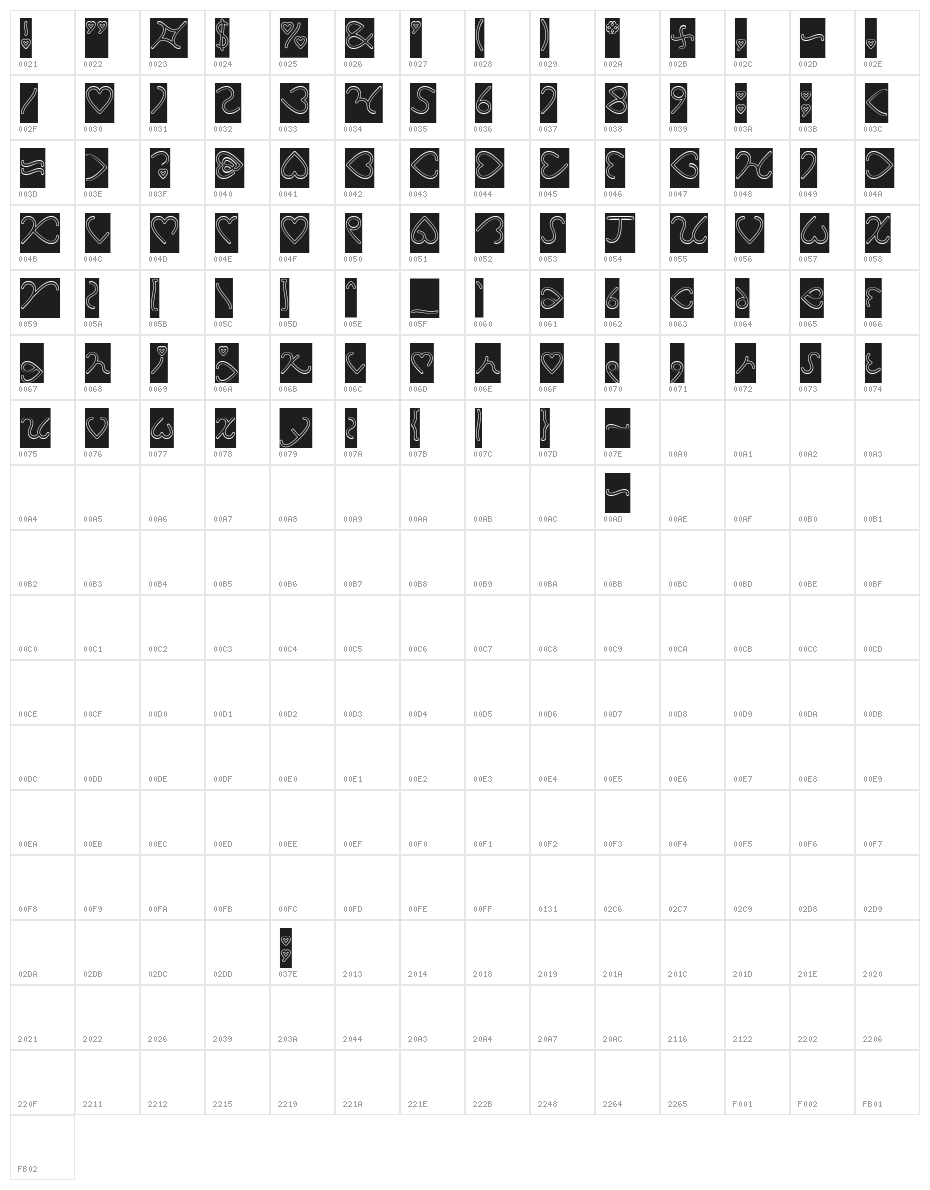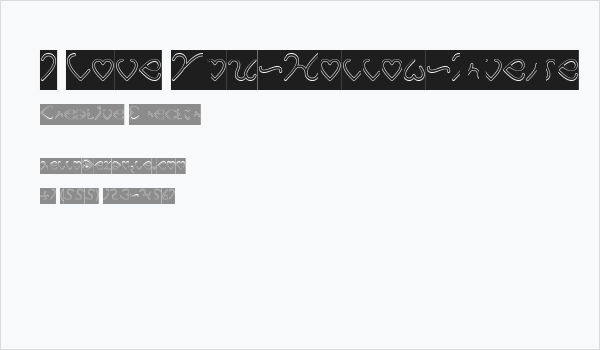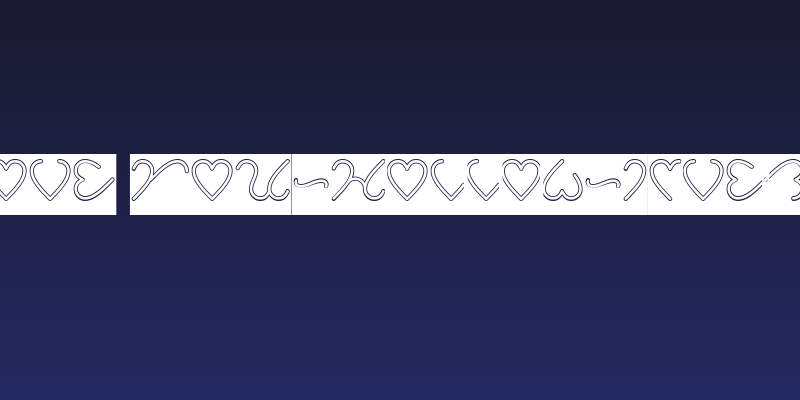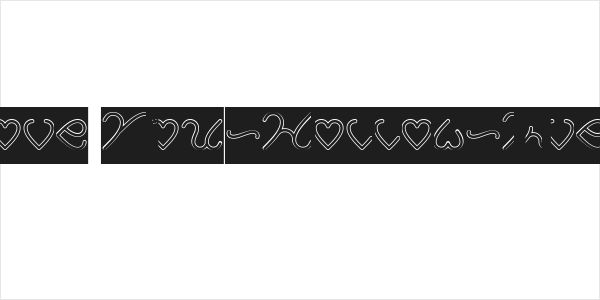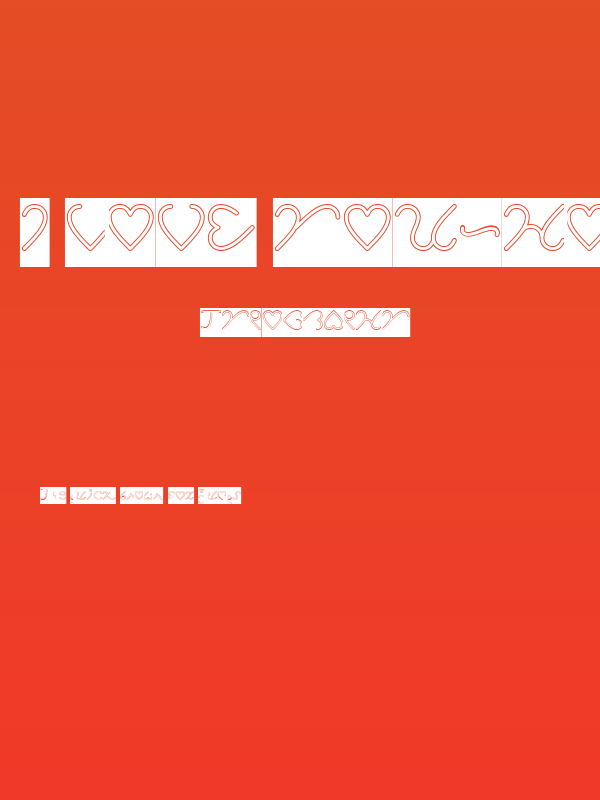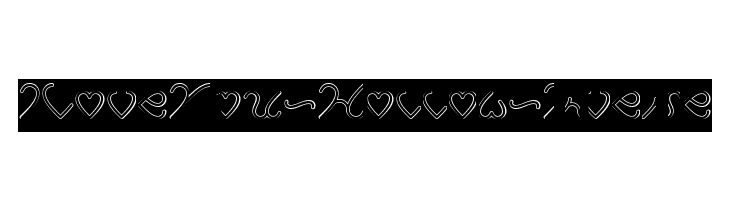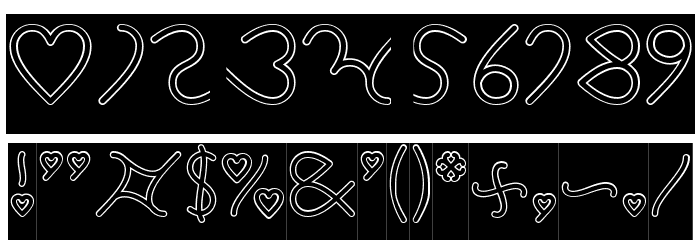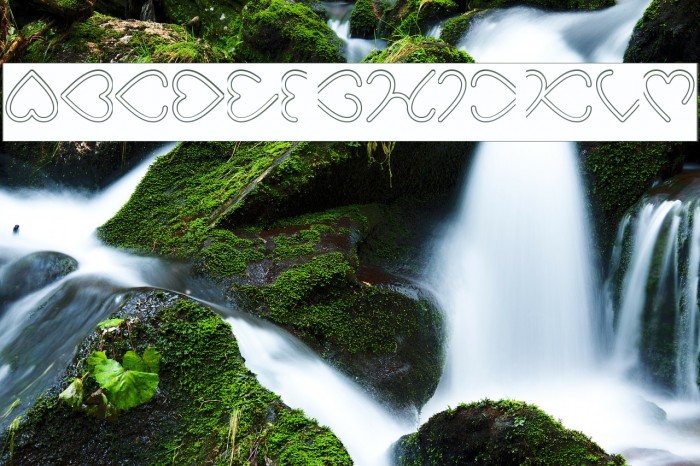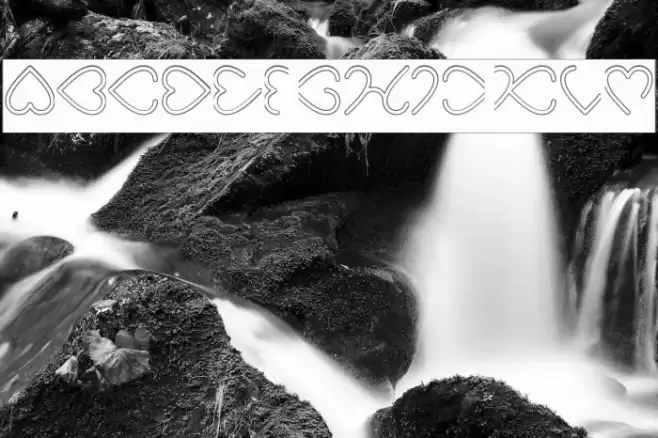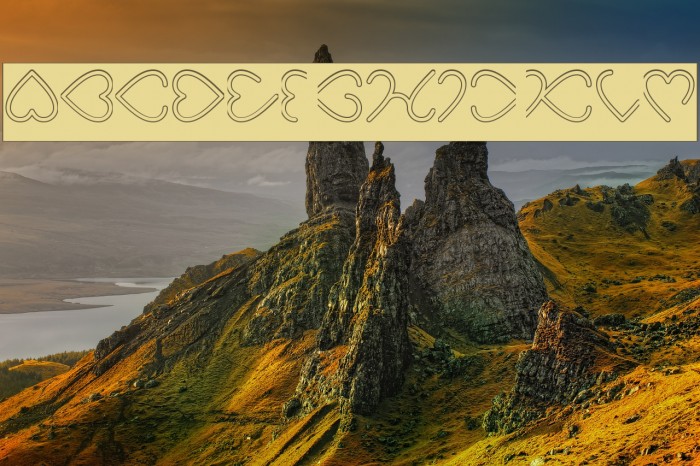
I Love You-Hollow-Inverse Font
This font features a playful and romantic design, with each character incorporating heart shapes and flowing lines. The hollow, inverse style gives it a unique, airy appearance, making it stand out against dark backgrounds. The letters and numbers are crafted with a whimsical touch, perfect for conveying love and affection. The special characters continue the theme with heart motifs and curvy lines, adding to the font's charm. Its decorative nature makes it ideal for projects that require a touch of romance and creativity.
| Use Case | Logos, Headlines, Greeting Cards |
| Proposed Projects | Ideal for Valentine's Day cards, wedding invitations, romantic social media graphics, and love-themed merchandise. |